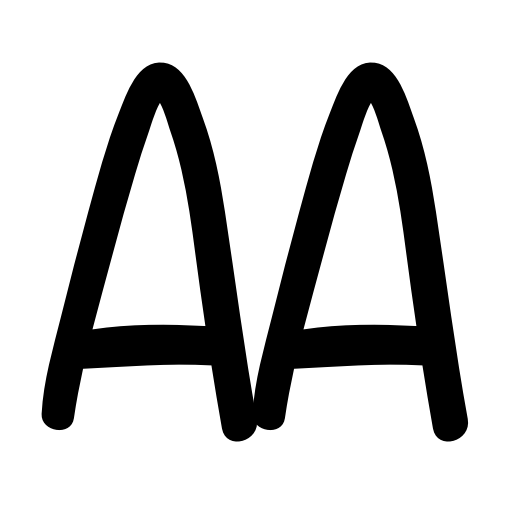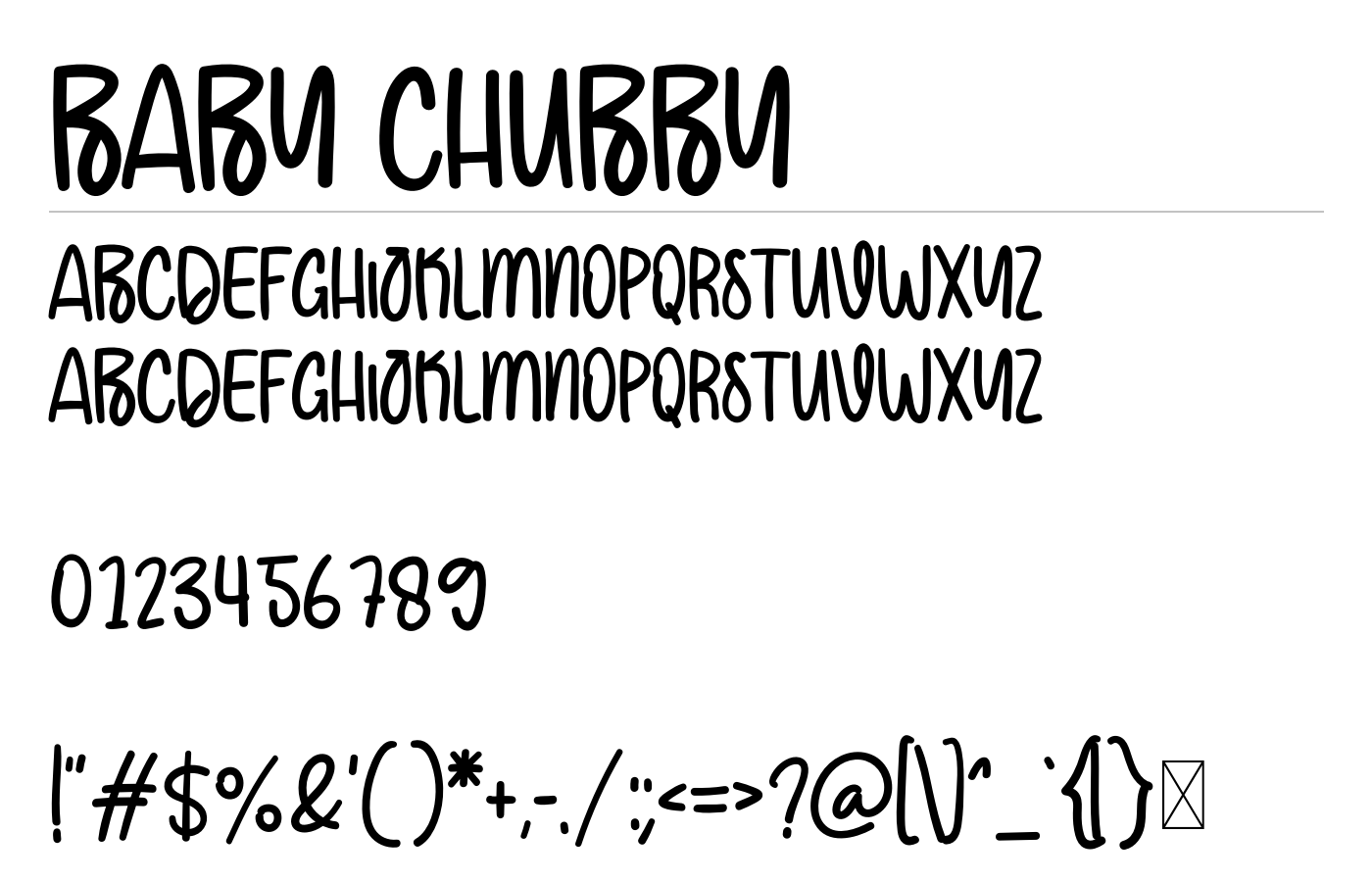
Baby Chubby is a playful, casual handwritten font with a light, narrow structure and smooth, rounded strokes that give it a friendly and approachable feel. Its tall, slightly irregular letterforms and quirky details make it ideal for fun, informal designs like children’s products, creative branding, and lighthearted headlines where a whimsical, personal touch is welcome. This font works best when you want to add a lively, youthful vibe to your projects without sacrificing readability.
Baby Chubby Font
About Baby Chubby Font
| Font family | Baby Chubby Font |